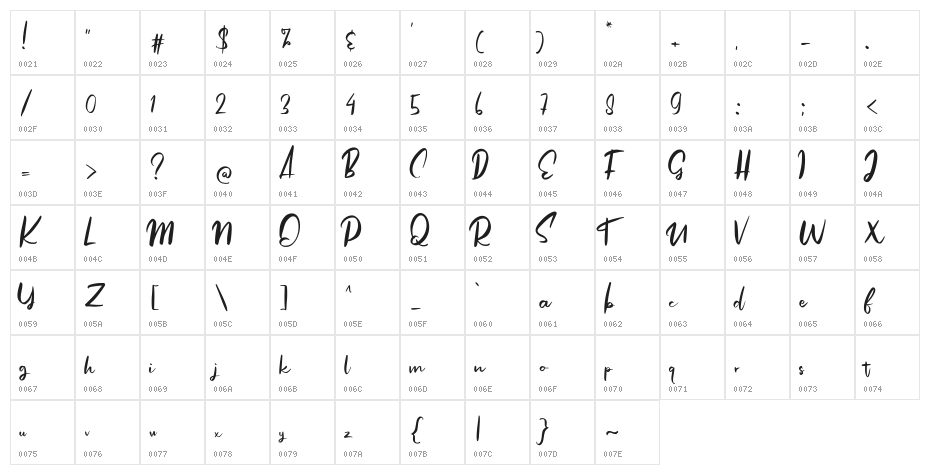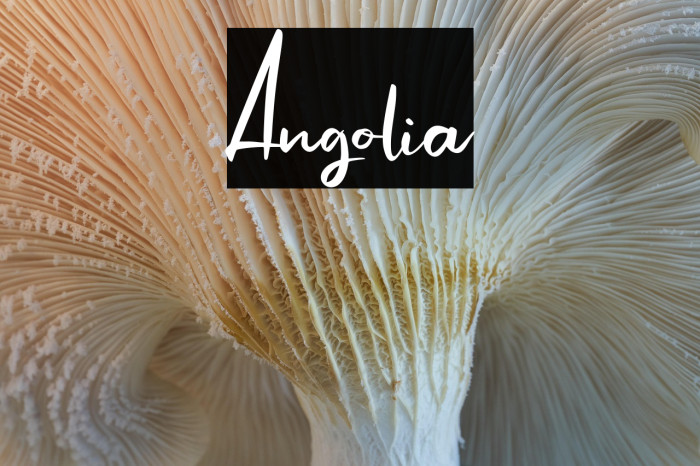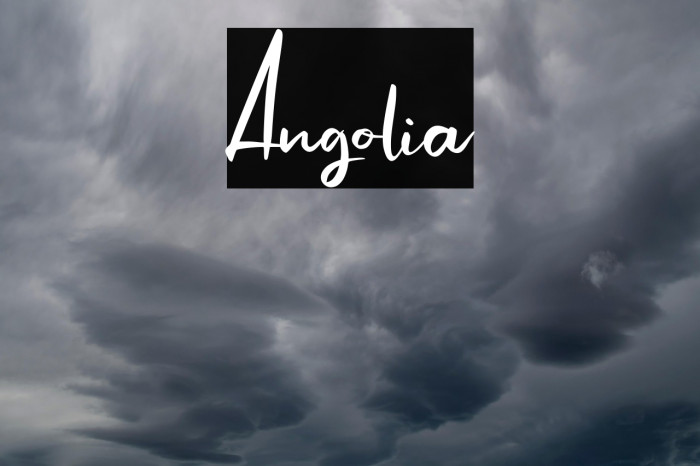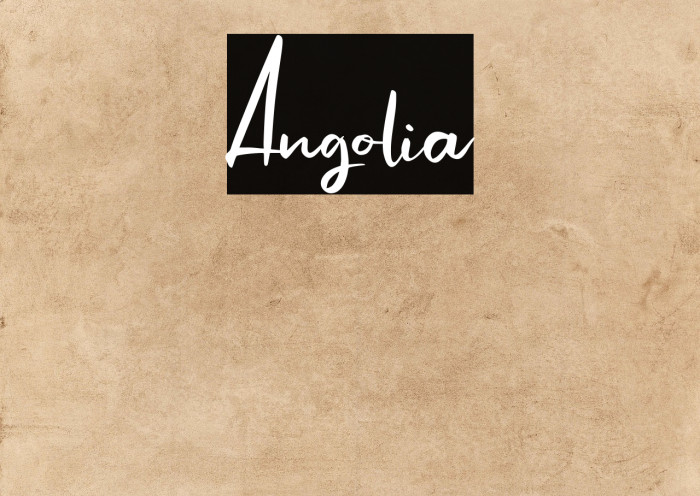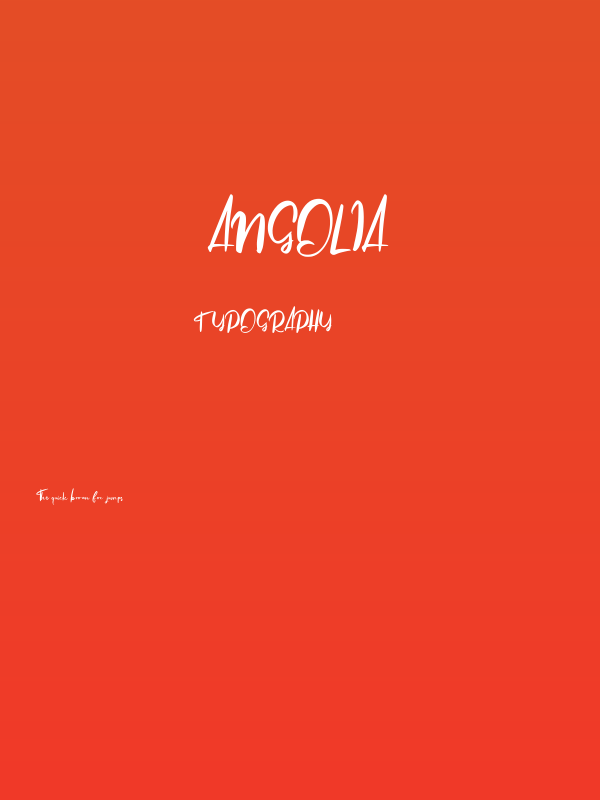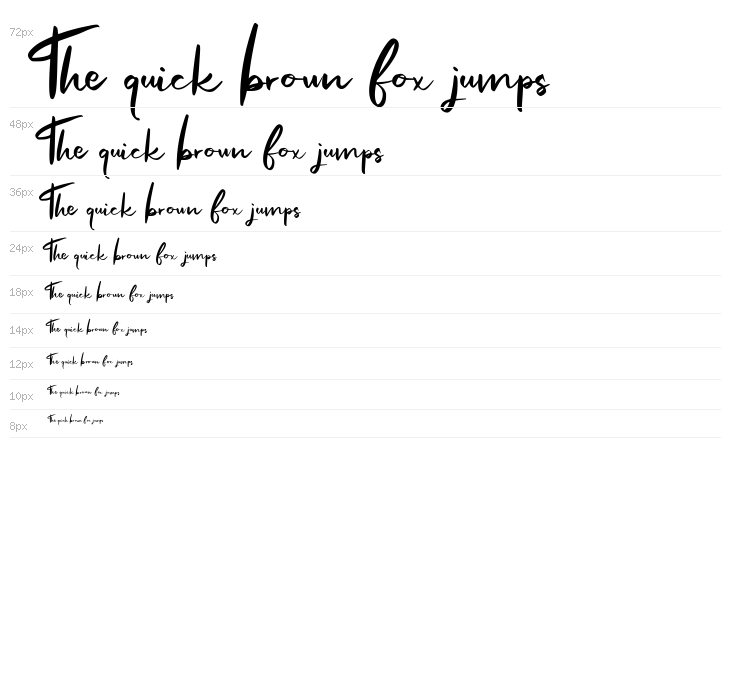
Angolia Font
Angolia Description
A flowing, cursive script font with a modern and elegant style, featuring smooth, connected strokes and a handwritten appearance.
| Proposed Projects | Invitations, greeting cards, logos, branding. |